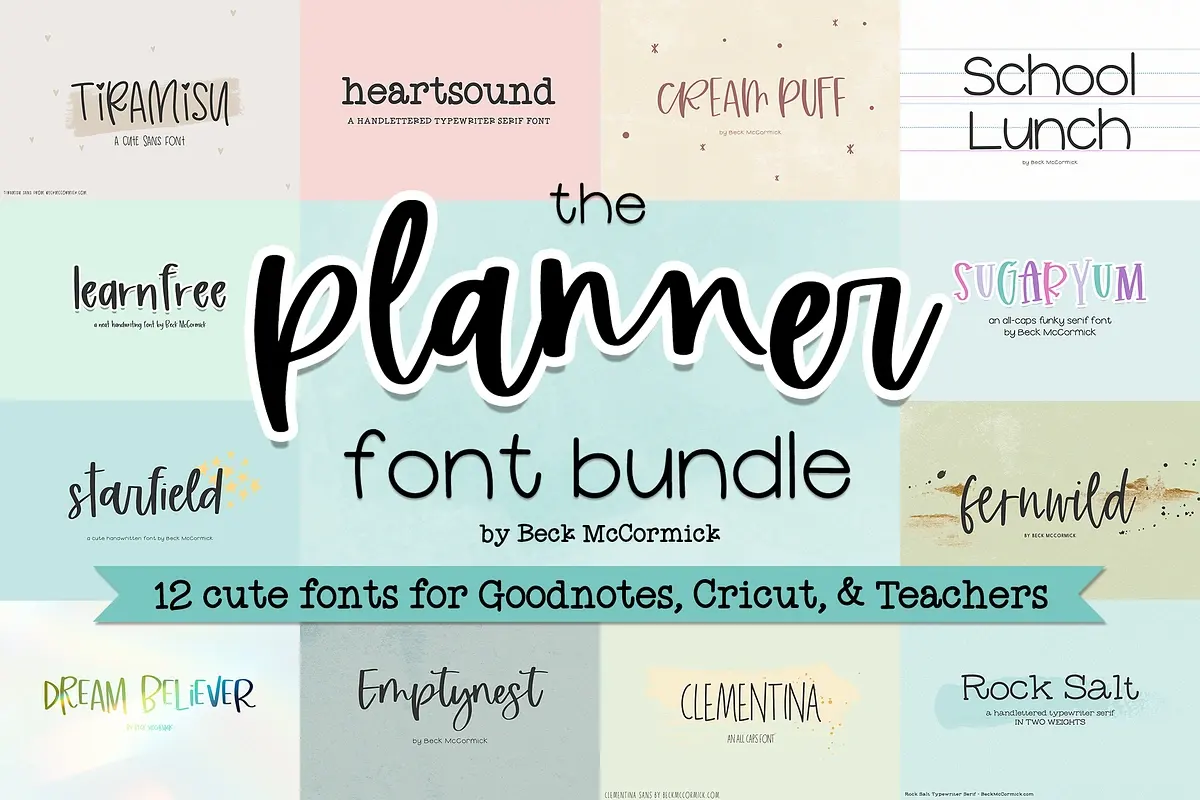
The Planner Font Bundle Free Download is a charming and versatile collection of fonts crafted specifically for planners, journaling, stickers, scrapbooking, and lifestyle design. With a delightful mix of handwritten scripts, clean sans-serifs, and decorative display fonts, this bundle helps you create beautifully organized and visually engaging layouts.
Each font in the bundle brings its own personality—some playful, some elegant, some perfectly minimal—allowing you to mix and match for headers, notes, quotes, and to-do lists. Ideal for both digital and printable planners, this bundle gives you the creative freedom to build an aesthetic that fits your brand or mood. You can download and test the fonts for free, but a commercial license is required for monetized or client use.
Stay stylishly organized with The Planner Font Bundle Free Download, and make every page pop with fonts that are as fun and functional as your planning goals. A must-have for creatives, small business owners, and planner lovers alike!